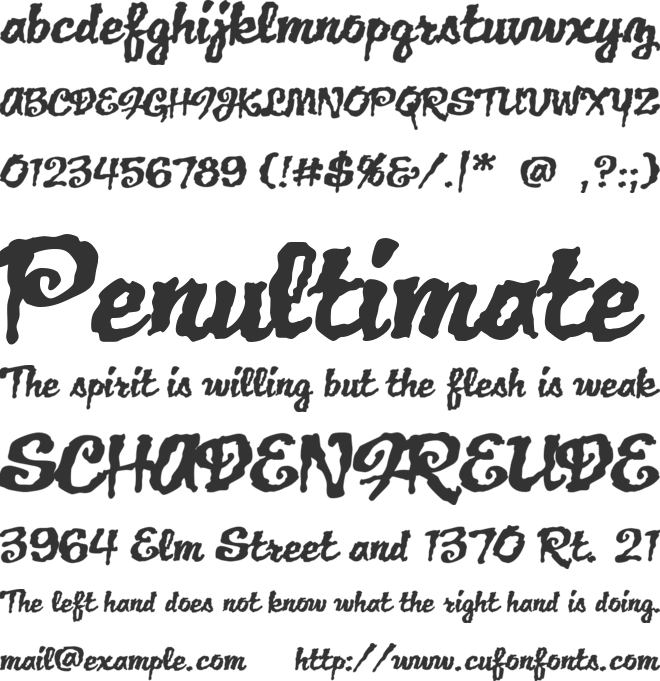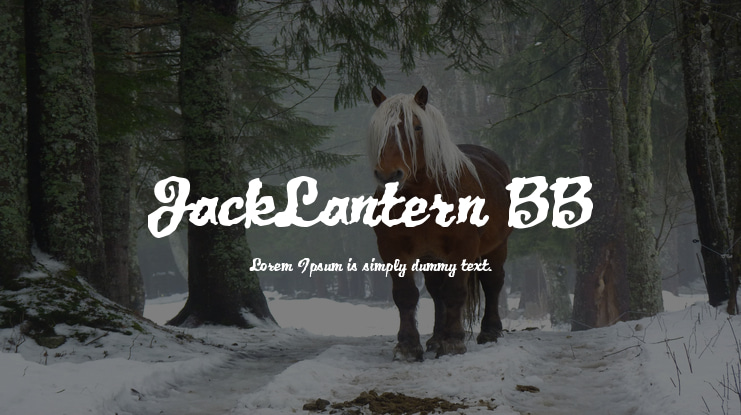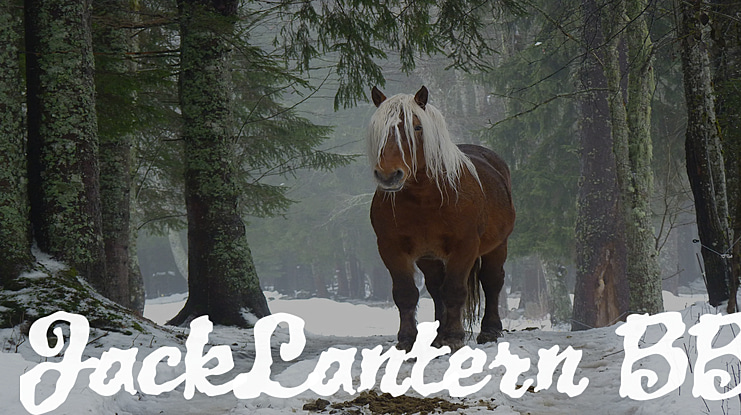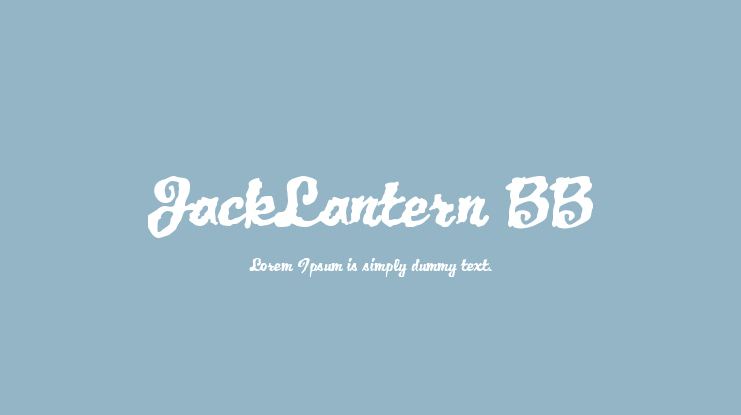
JackLantern BB Font
This ragged script font will add the perfect touch to your horror comic, your costume party invitations, or even a note to pin to your front door that says youâre too cheap to give out candy.